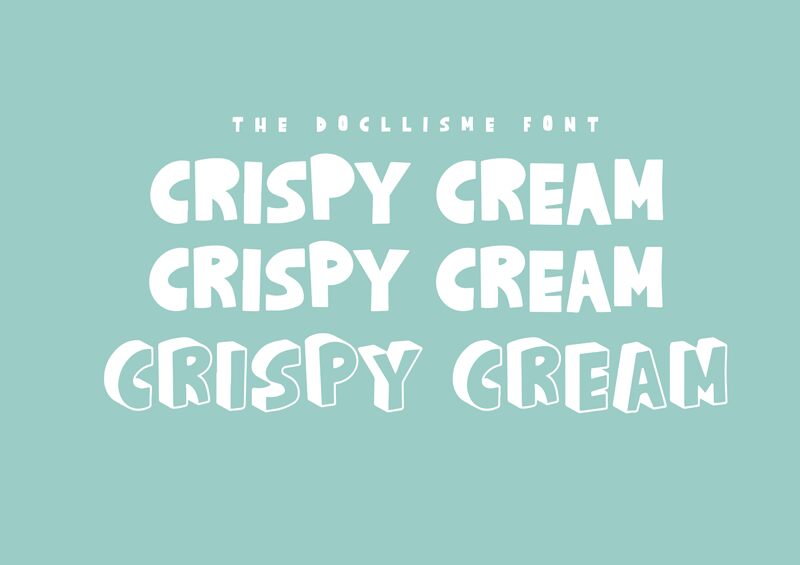
Crispy Cream 3D
Crispy Cream 3D leaps off the page with its bold, three-dimensional cartoon style that's as delightful as it is impactful. Crafted by The Docallisme - Amry Al Mursalaat, this member of the Crispy Cream font family is a lively display type that captures attention with its playful charm and substantial presence. The font's exaggerated 3D effect adds depth to each character, making it an instant standout in any visual composition.
With its chunky form and clean lines, Crispy Cream 3D exudes a friendly yet assertive vibe that's perfect for eye-catching headlines, fun branding projects, and interactive designs where personality is key. Whether used in digital media or print, this typeface adds a layer of whimsy while maintaining readability — an essential balance for designers aiming to engage audiences in a memorable way.
The robust weight of Crispy Cream 3D ensures it holds its own even when used sparingly; yet, it’s versatile enough to be the star of the show in larger blocks of text. Its suitability spans from children's books to playful advertising campaigns and anywhere creativity needs a three-dimensional pop. Embrace the fun-loving spirit of Crispy Cream 3D for your next project and watch your designs come alive with energy and dimension!